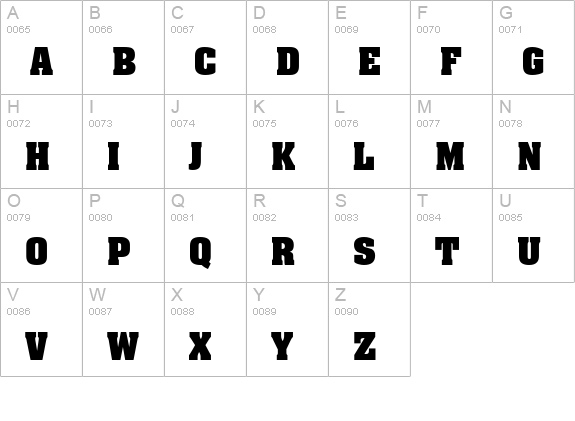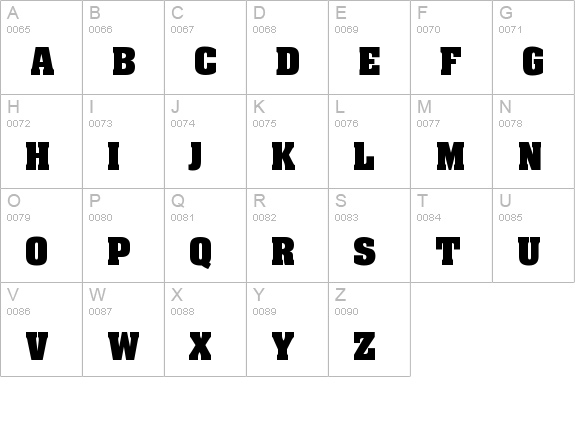
Acklin Regular Font Details
Acklin Regular is the standard, neutral variant in the Acklin typeface family \xE2\x80\x94 well suited to general body text, paragraphs, and standard typographic work.
Acklin Regular font is a versatile and elegant typeface that exudes sophistication and modernity. With its clean lines and balanced proportions, this font is perfect for a wide range of design projects, from branding to editorial design and everything in between. What sets Acklin Regular font apart is not only its timeless appeal but also the fact that it is available for free download at FontsMarket.com. This means that you can easily access this high-quality font without any cost, making it a valuable addition to your font collection. Whether you're a designer looking for a stylish typeface to elevate your projects or someone in need of a fresh font for personal use, Acklin Regular font is sure to meet your needs. Download it today and experience the beauty and versatility of this stunning font for yourself.